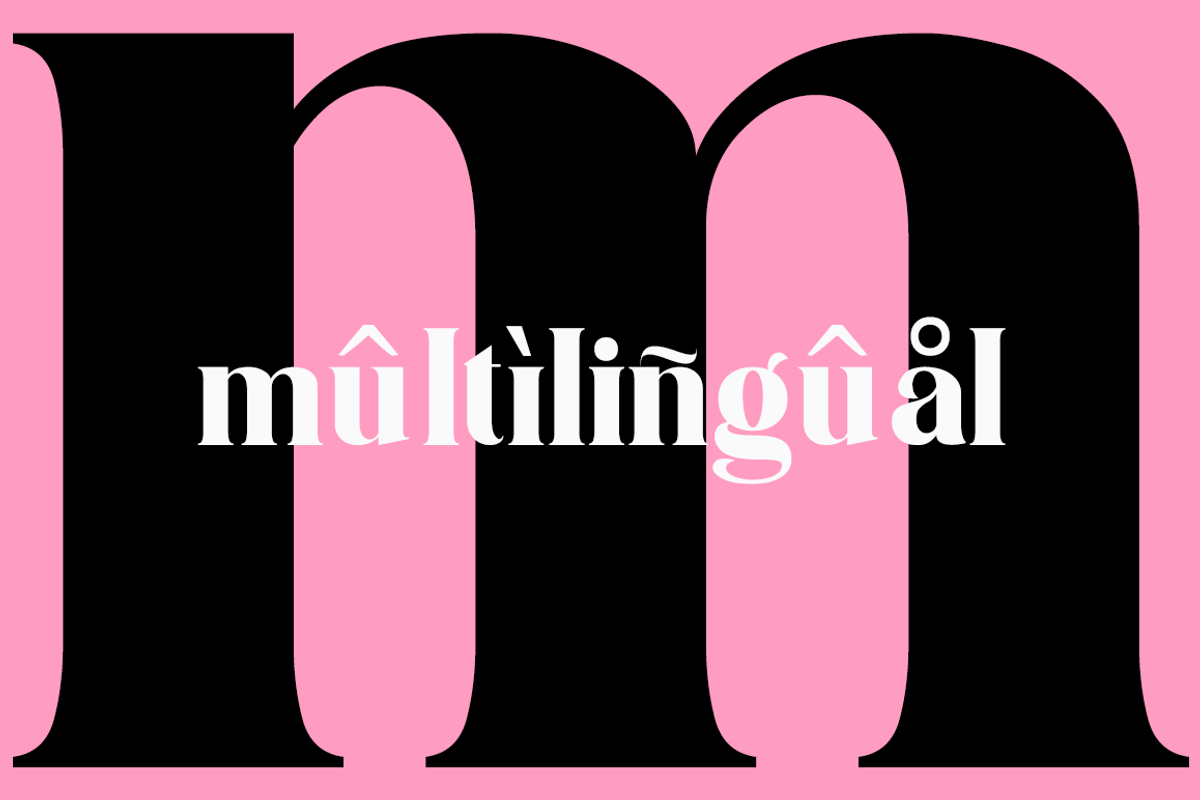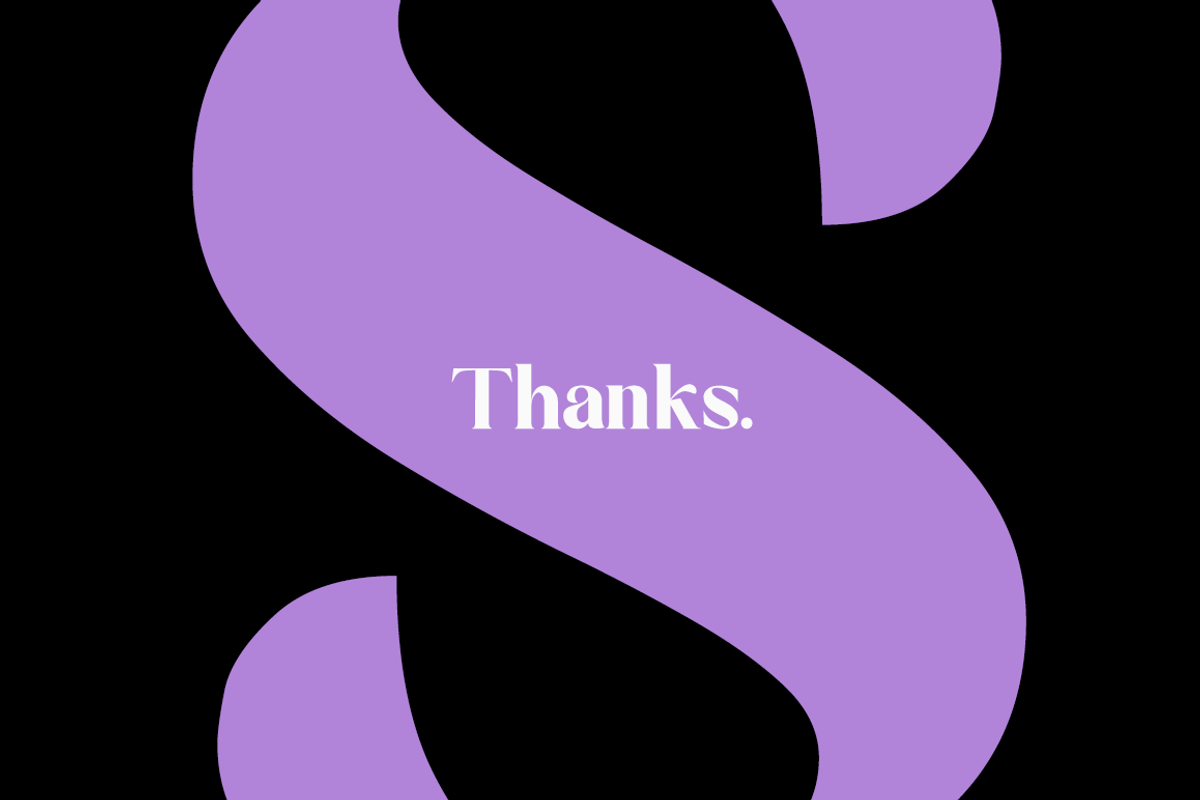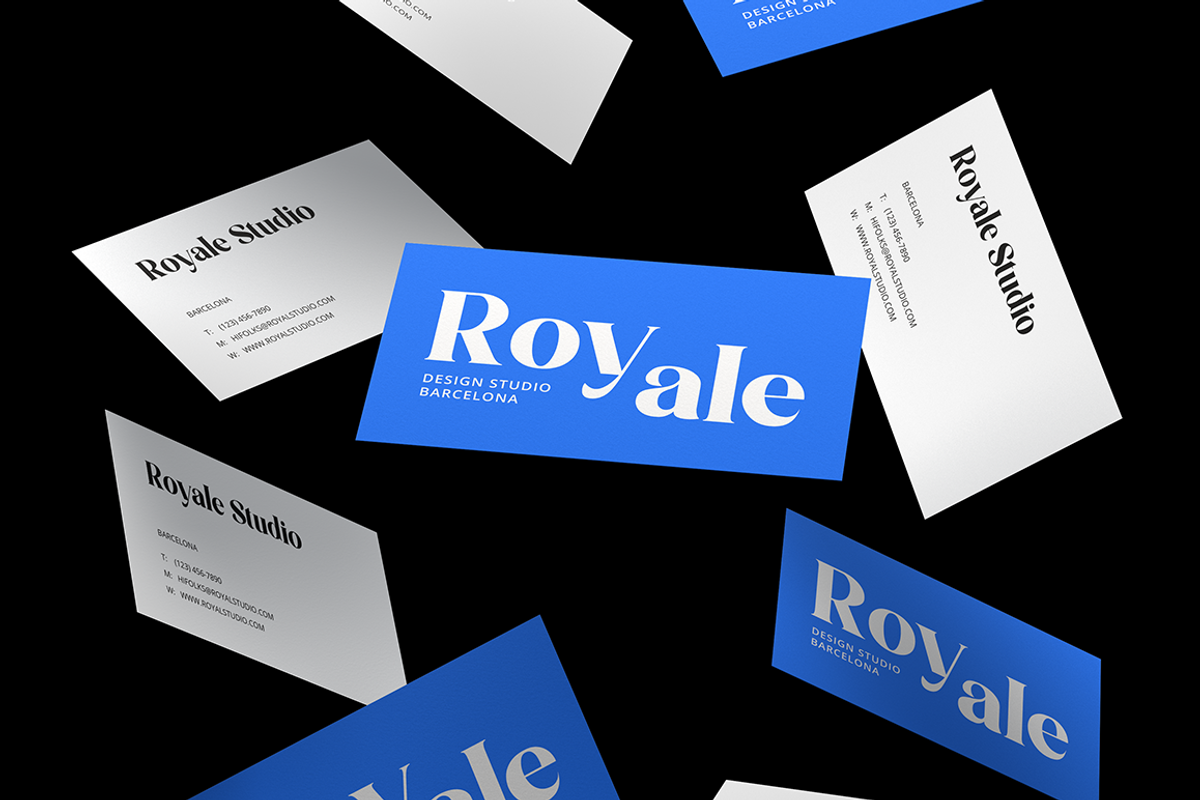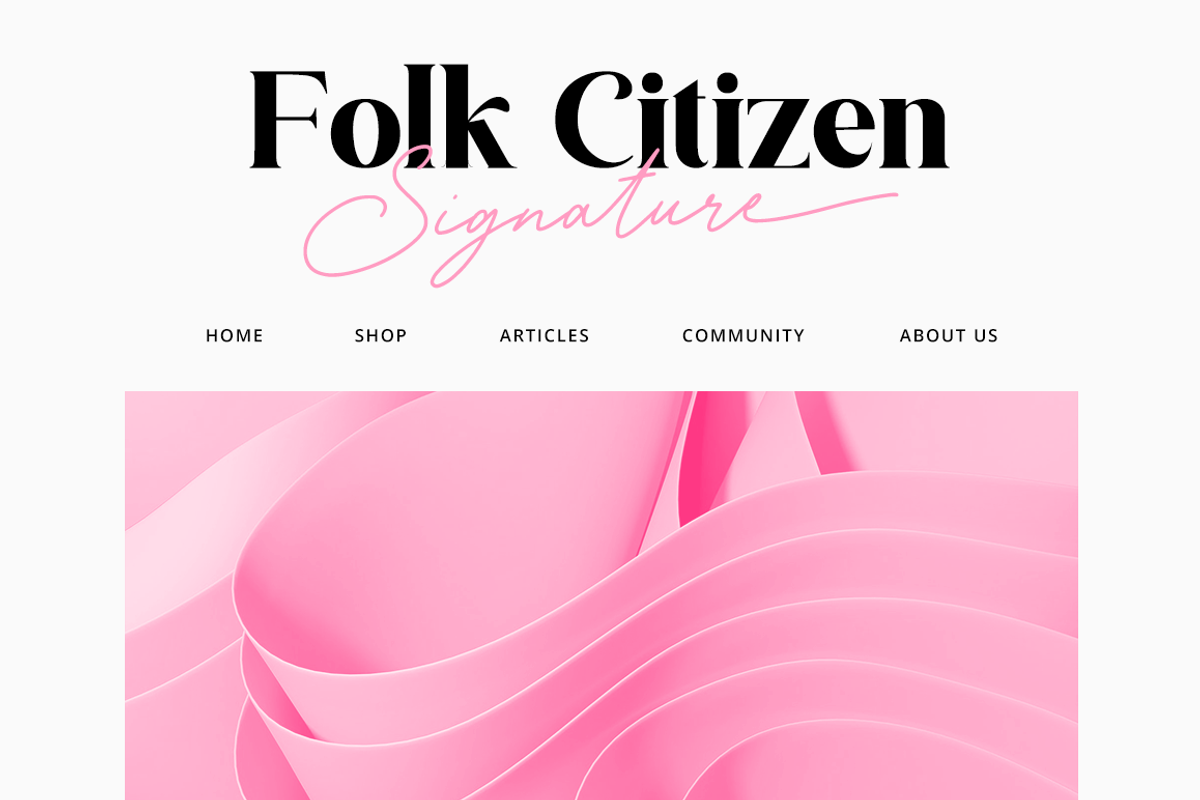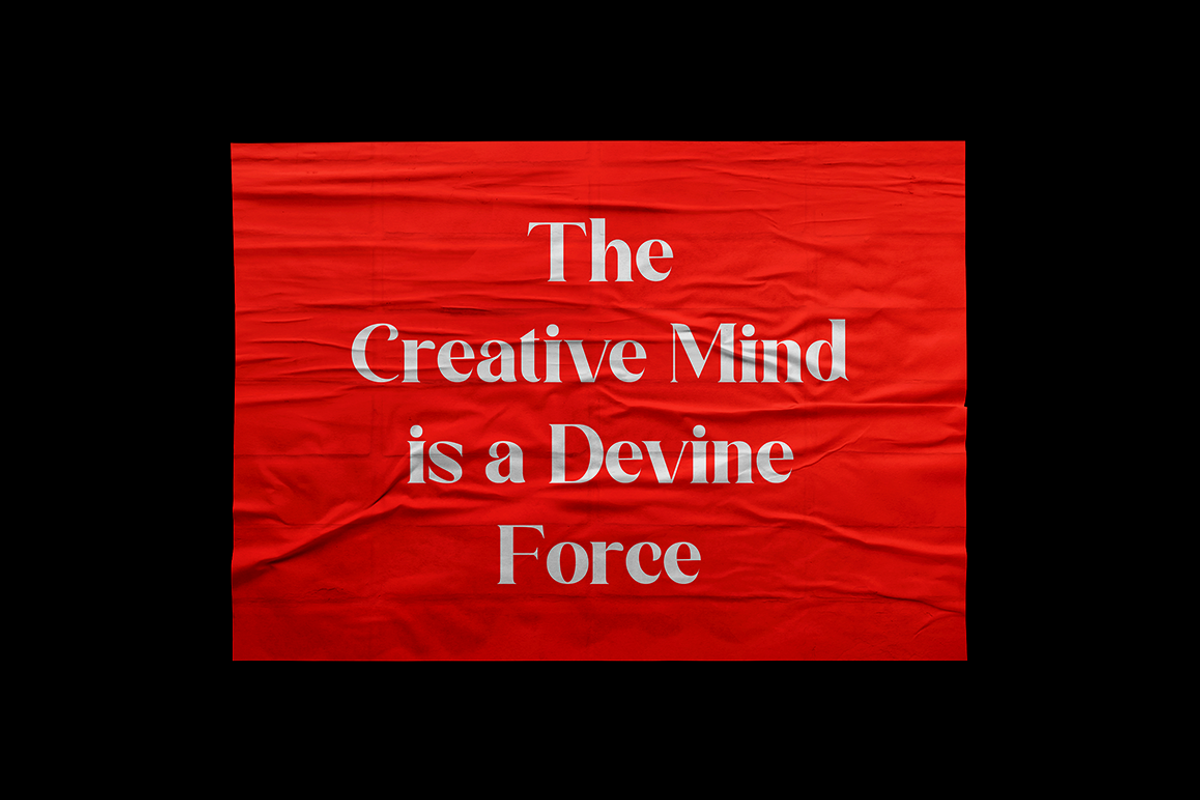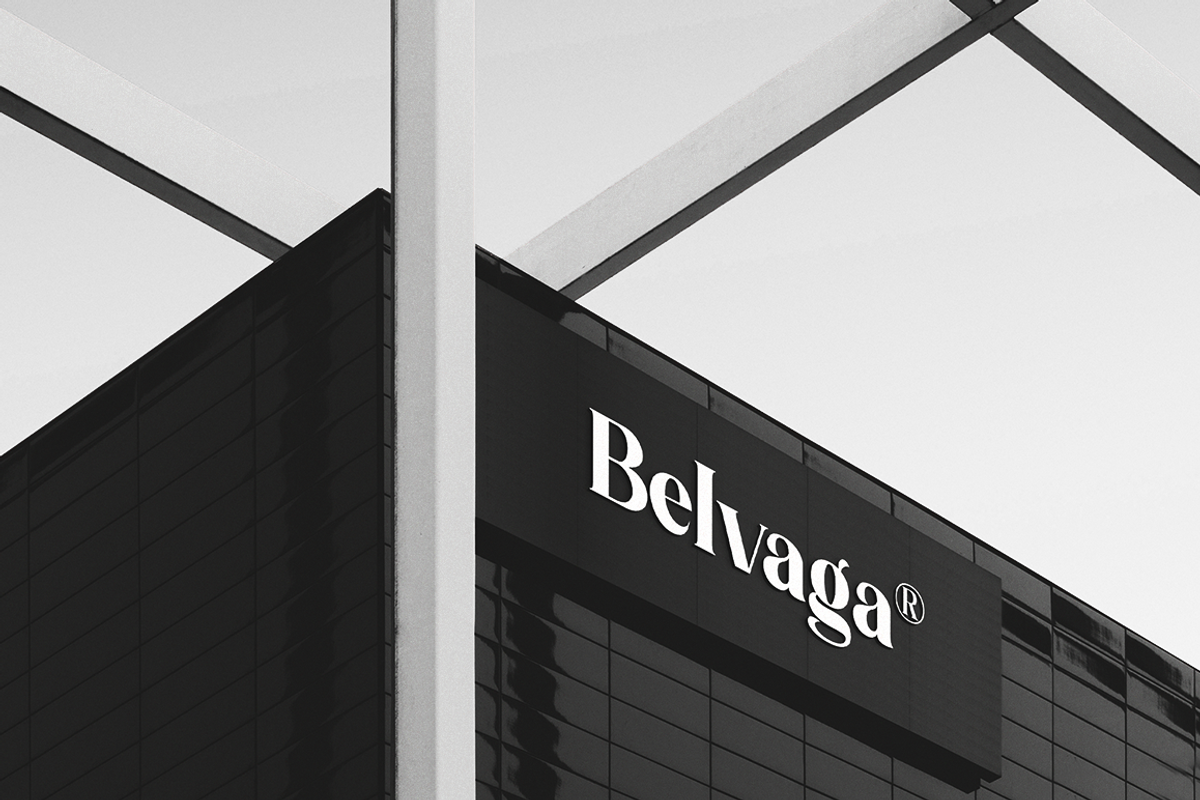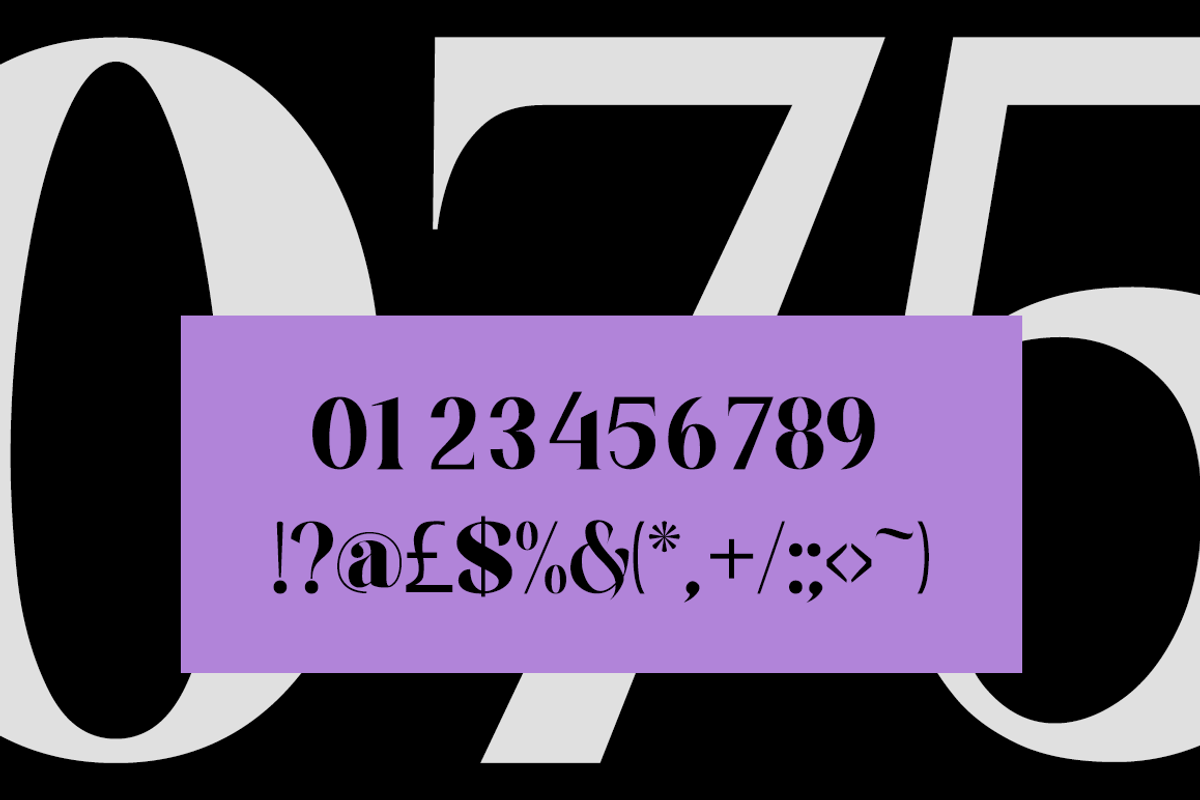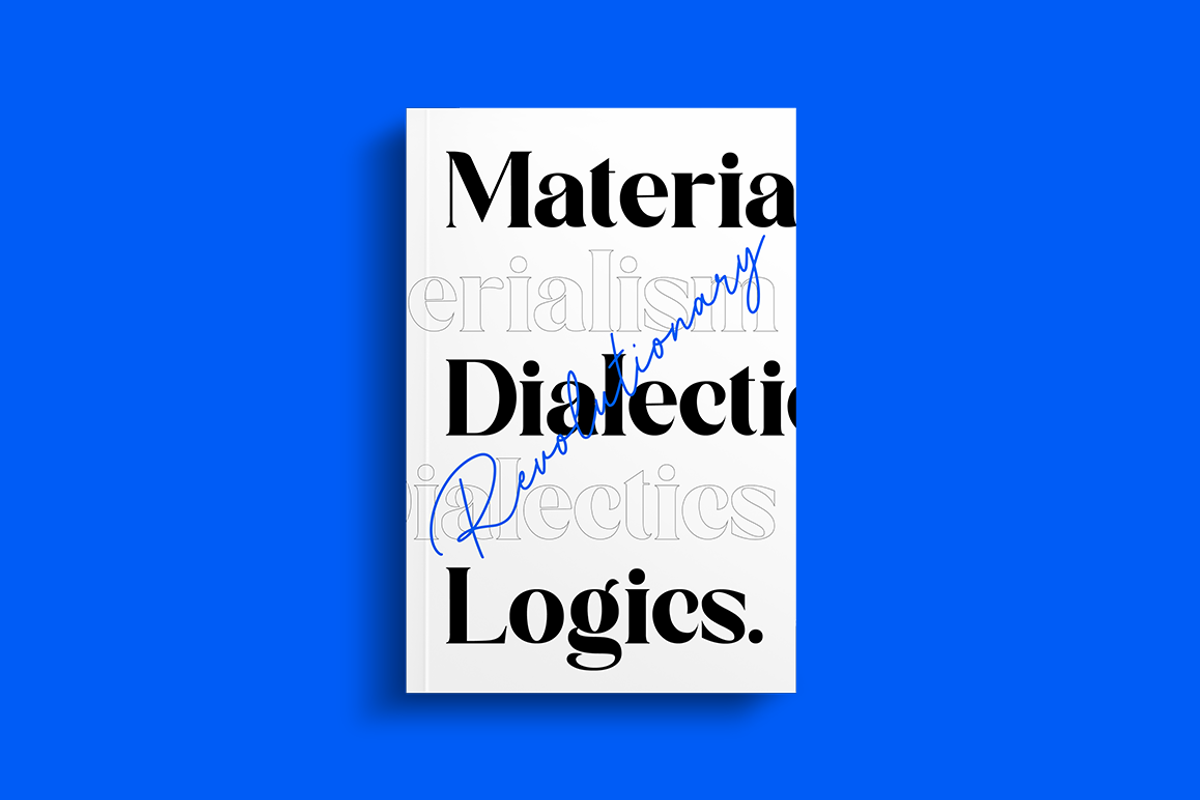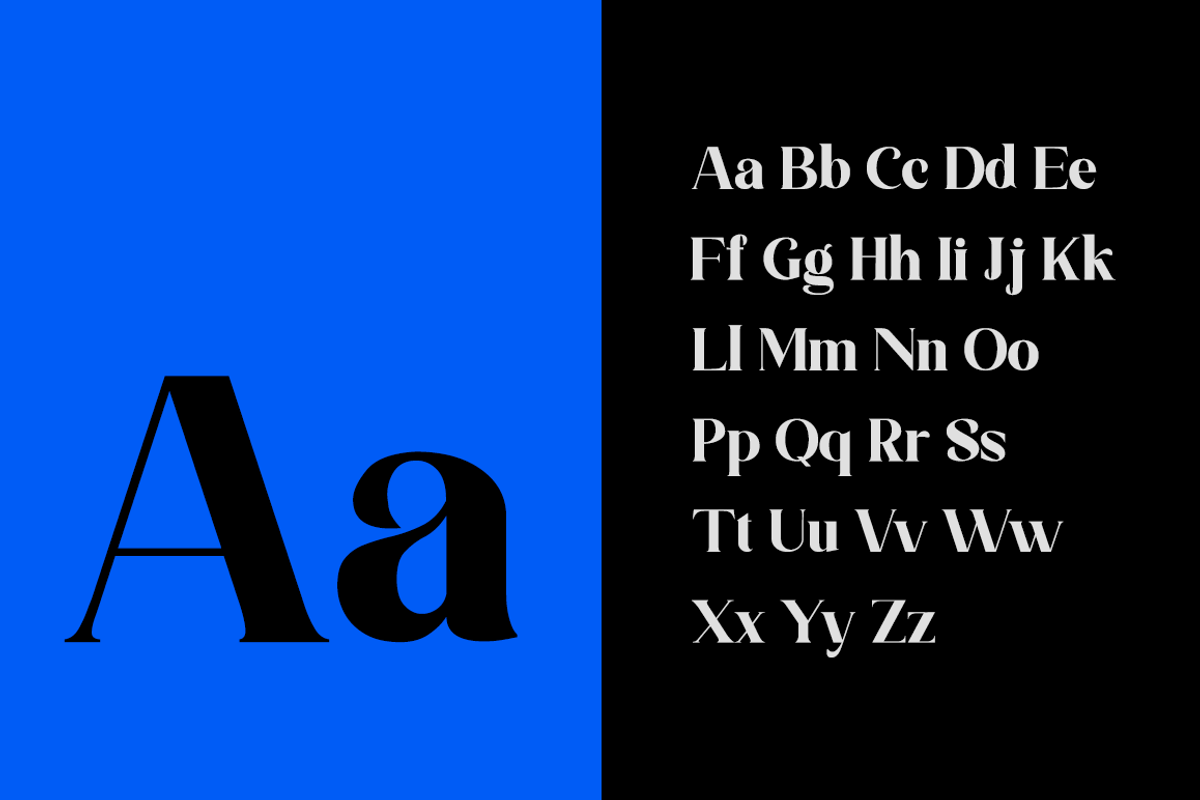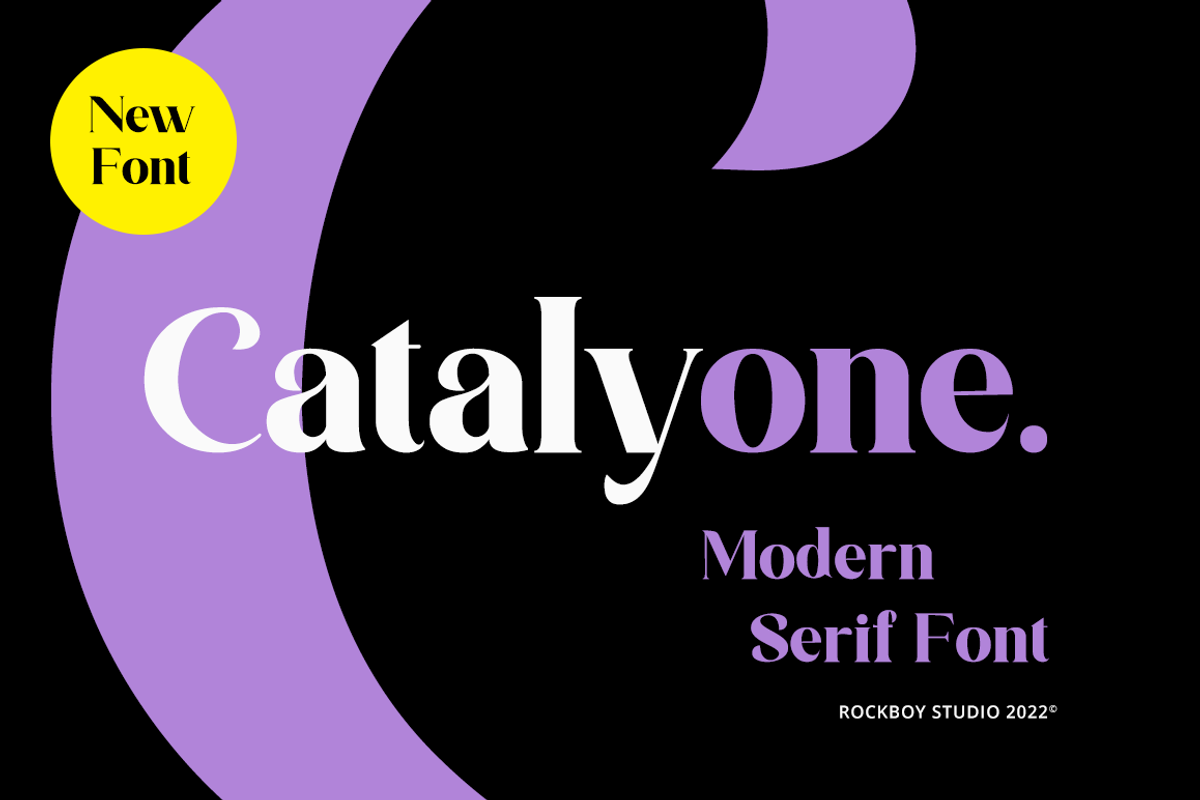
Catalyone - Fashion Font
Catalyone is an elegant, thin lettered and distinct serif font. Suitable to a wide variety of designs due to its neat and clean style, this font has the potential to become your favorite go-to font, no matter the occasion!